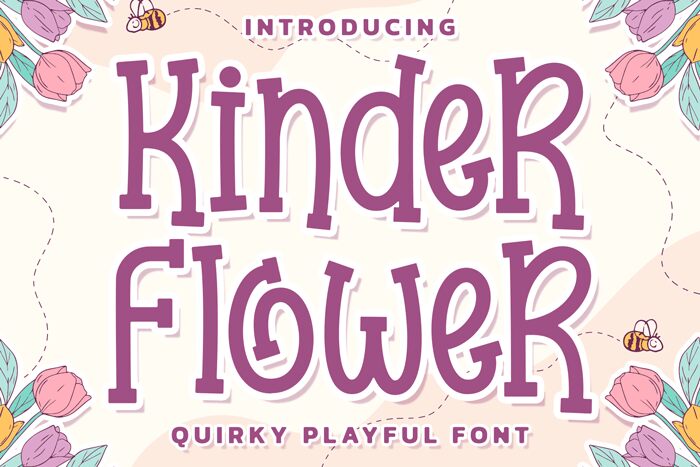
Kinder Flower, a delightful creation by Hoperative, is a charming display font that exudes a quirky and playful cartoon style. With its versatile weight options, this font can be used in a wide range of projects.
Its whimsical nature makes it perfect for children's book illustrations, animated films, toy packaging designs, and even playful website headers. Whether you're looking to add a touch of whimsy to your branding or create captivating visuals for your next project, Kinder Flower is the ideal choice for bringing joy and creativity to any design endeavor.